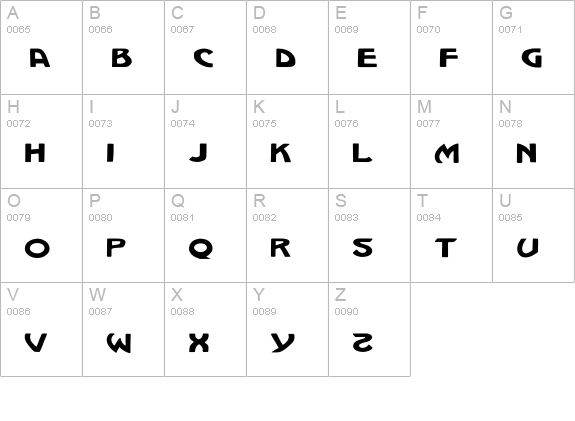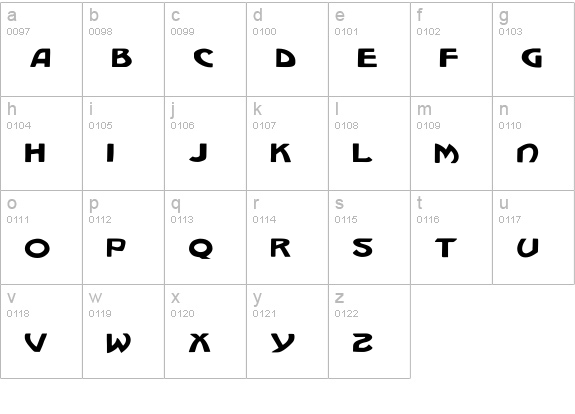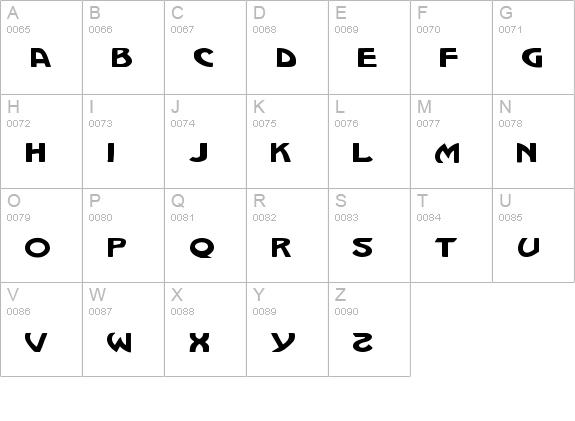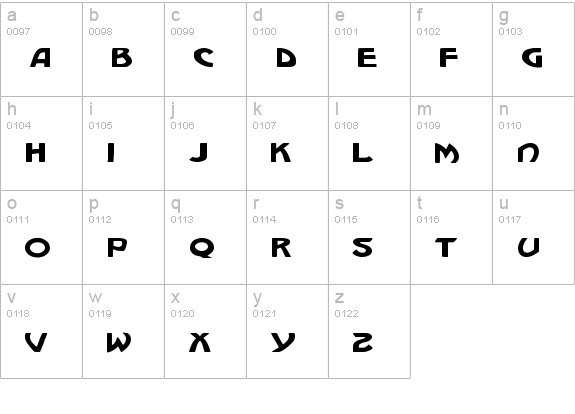
MCO NormalMachiav Font Details
Introducing MCO NormalMachiav font, a sleek and modern typeface that will elevate your designs to new heights. This font is the perfect blend of sophistication and versatility, making it suitable for a wide range of design projects. With its clean lines and elegant curves, MCO NormalMachiav font exudes a sense of professionalism and refinement. Whether you're designing a logo, creating a website, or crafting a print advertisement, this font will add a touch of class to your work. One of the best features of MCO NormalMachiav font is that it is freely available to download at FontsMarket.com. Yes, you read that right - this high-quality font can be yours at no cost. It's the perfect opportunity to enhance your design toolkit without breaking the bank. Not only is MCO NormalMachiav font aesthetically pleasing, but it's also incredibly easy to work with. Its well-defined letterforms ensure legibility, even at smaller sizes, while its generous spacing allows for effortless readability. This font is designed to make a statement without sacrificing functionality. Whether you're a professional designer or a design enthusiast, MCO NormalMachiav font is a must-have addition to your font collection. Its timeless appeal and versatility will ensure that it remains a valuable asset for years to come. So why wait? Head over to FontsMarket.com and download MCO NormalMachiav font for free today. Elevate your designs and leave a lasting impression with this exceptional typeface.